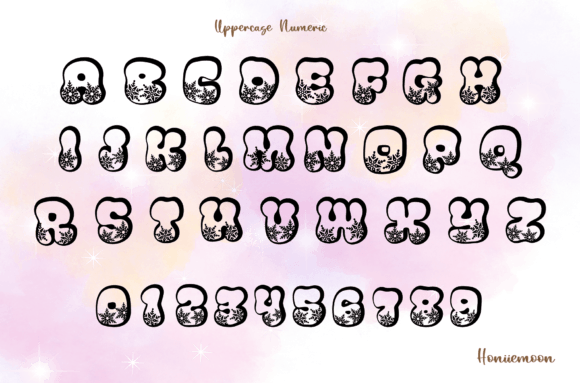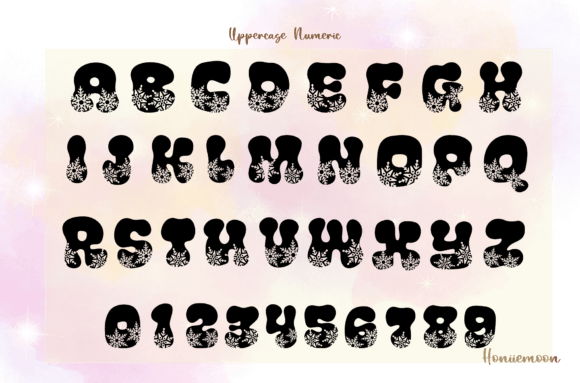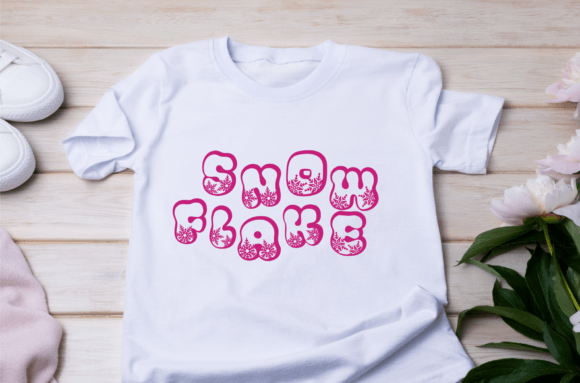
Introduction to Retro Snowflake Font
Retro Snowflake is a cool and fun decorative font.
It looks both cute and jolly and it will enhance each of your designs The only limit is your imagination.